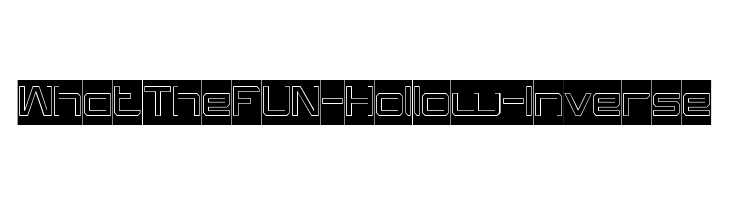
A hollow, geometric font with a modern and playful design.
A modern, geometric hollow font with a bold, outlined style.
A bold, geometric font with a futuristic and digital style.